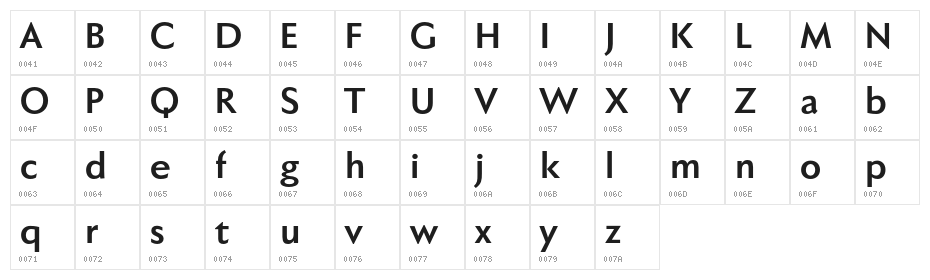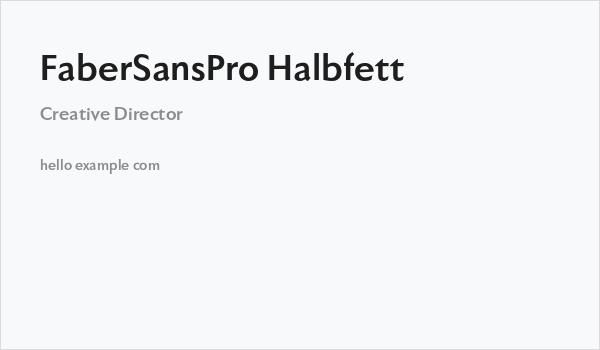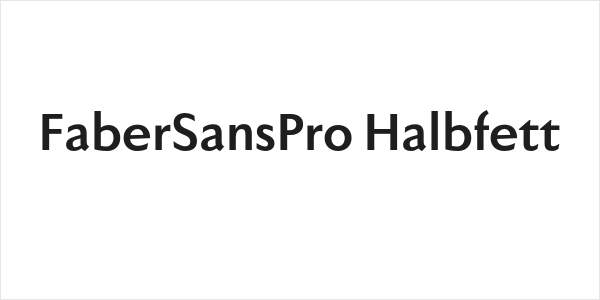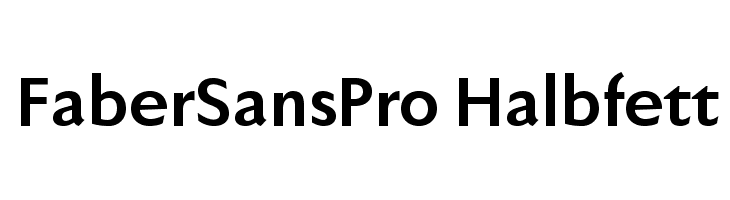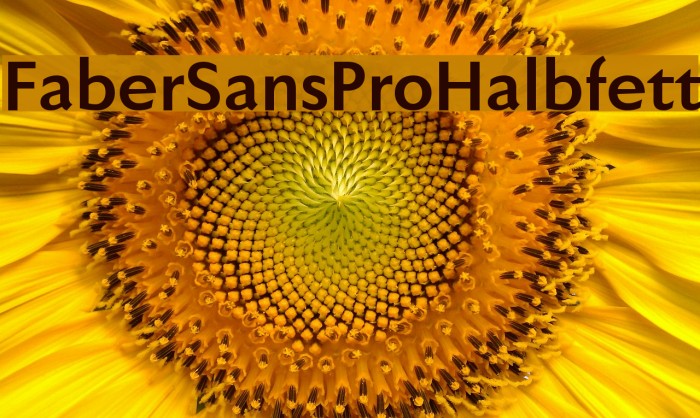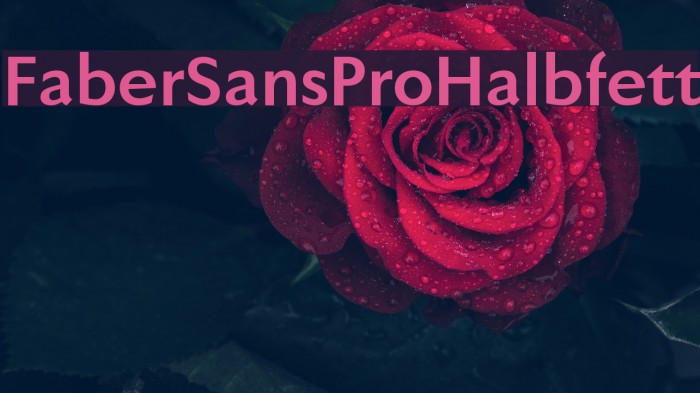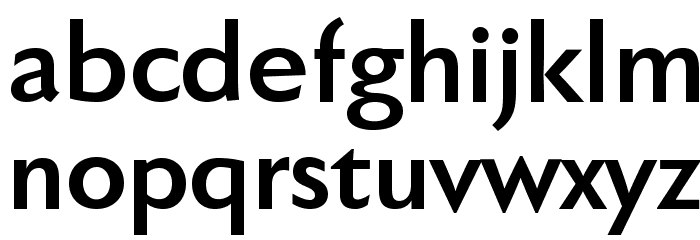
FaberSansPro-Halbfett Font
FaberSansPro-Halbfett Description
This font features a clean and modern sans-serif design with a balanced weight that provides excellent readability. The characters are well-proportioned with a slightly condensed width, making it suitable for both display and body text. The uppercase letters are bold and assertive, while the lowercase letters maintain a friendly and approachable appearance. The font's geometric shapes and uniform stroke widths contribute to its contemporary aesthetic. It includes a full set of uppercase and lowercase letters, numerals, and a selection of special characters, ensuring versatility for various design needs.